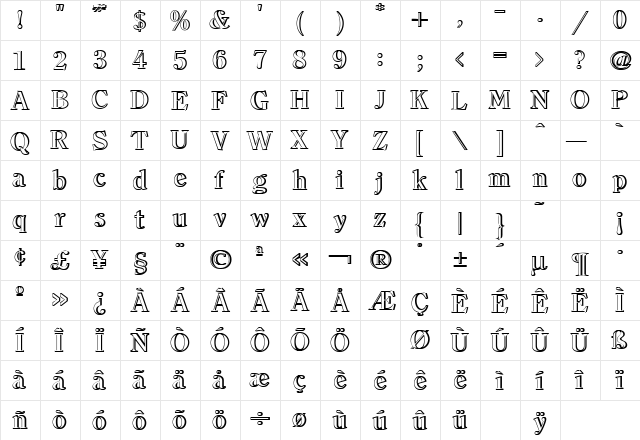
Clearface Outline Shadow Regular
Design Context for Clearface Outline Shadow Typeface
Clearface Outline Shadow brings ornamental detail and strong personality to headlines and identities, where visual impact matters more than quiet functionality.
Font Pairing: Pair with a clean neutral sans-serif for body copy to let Clearface Outline Shadow's character lead without overwhelming the composition.
Pro Tip: Use Clearface Outline Shadow exclusively at display sizes — it was designed to be seen, not read at length. Let a neutral companion handle body copy.